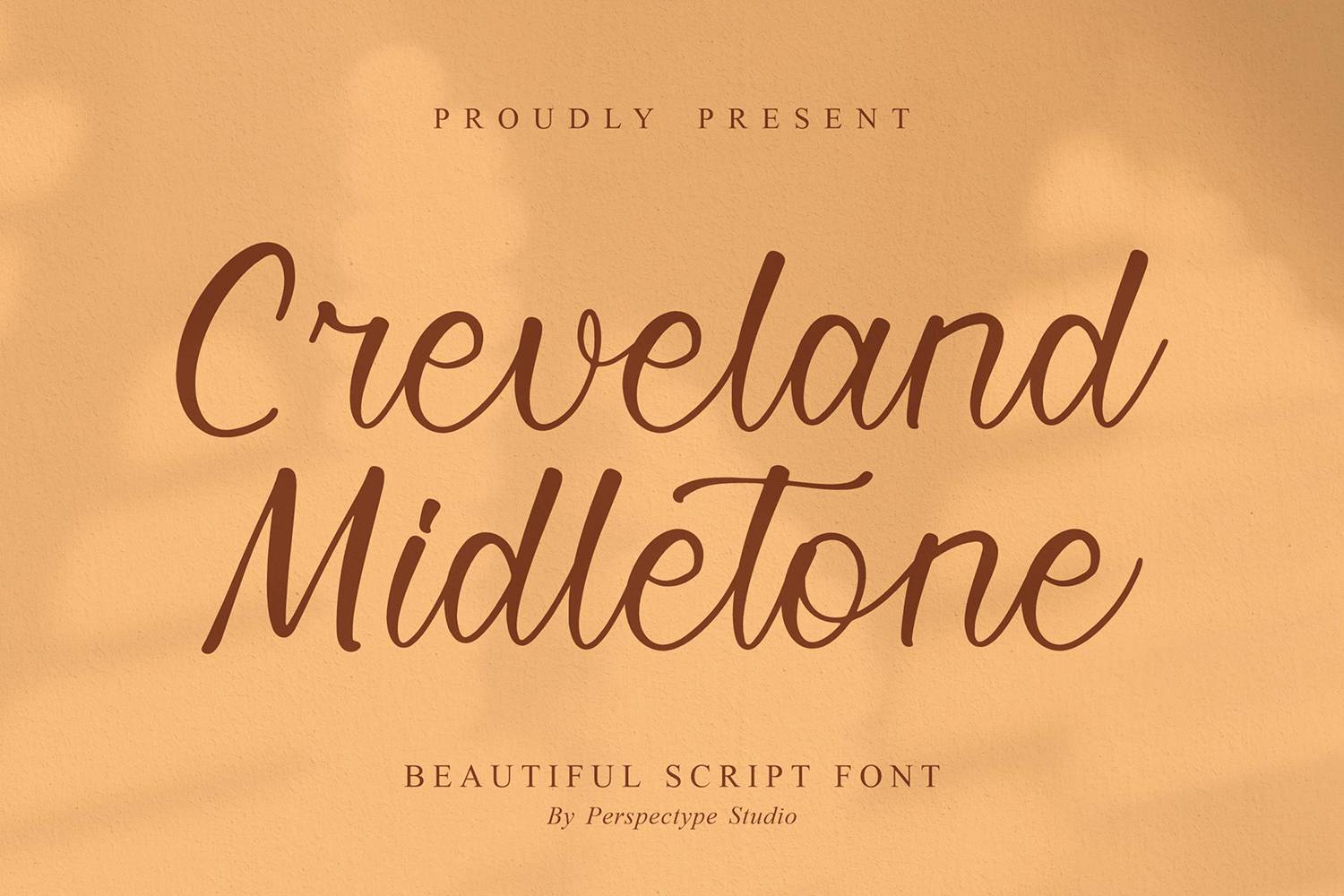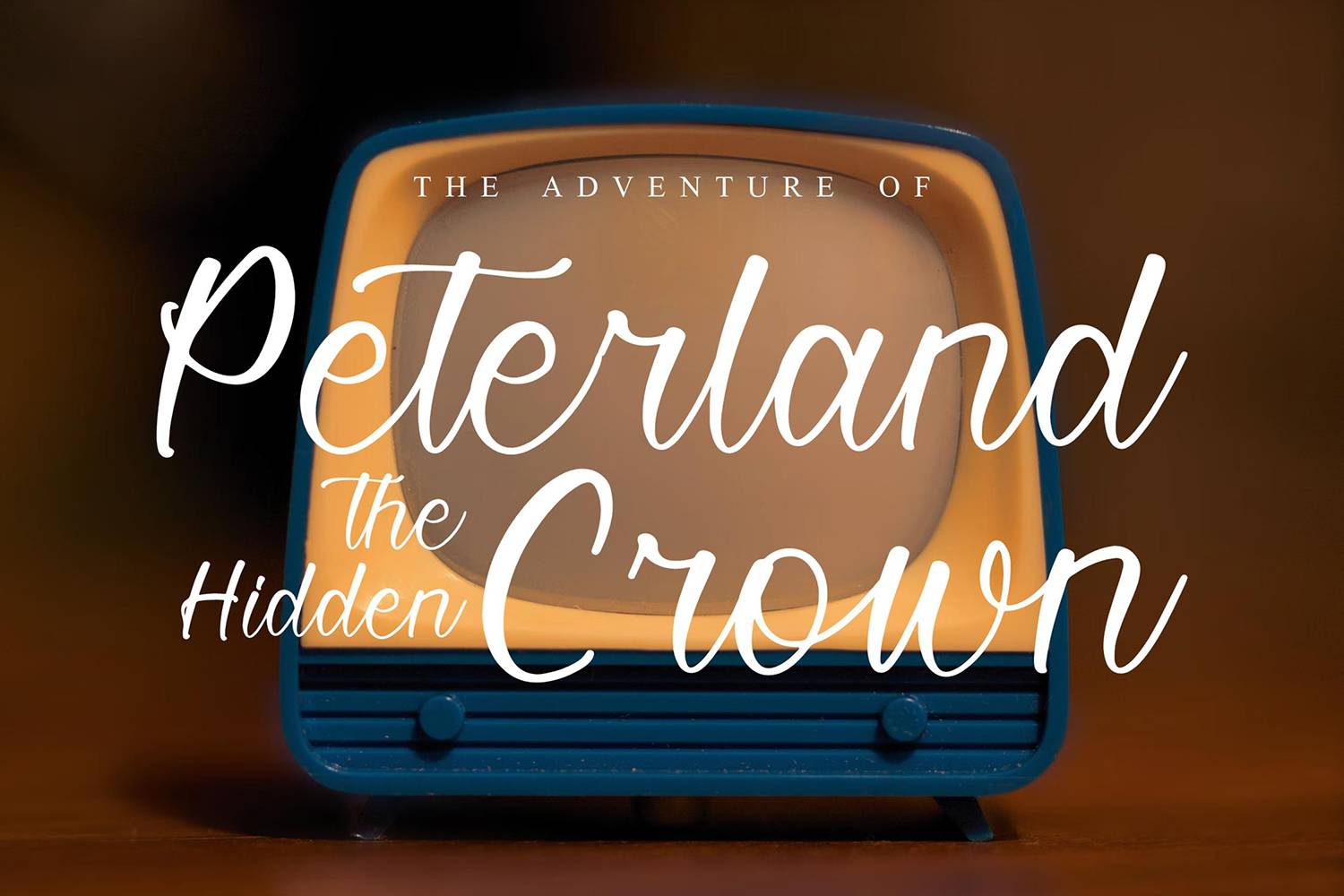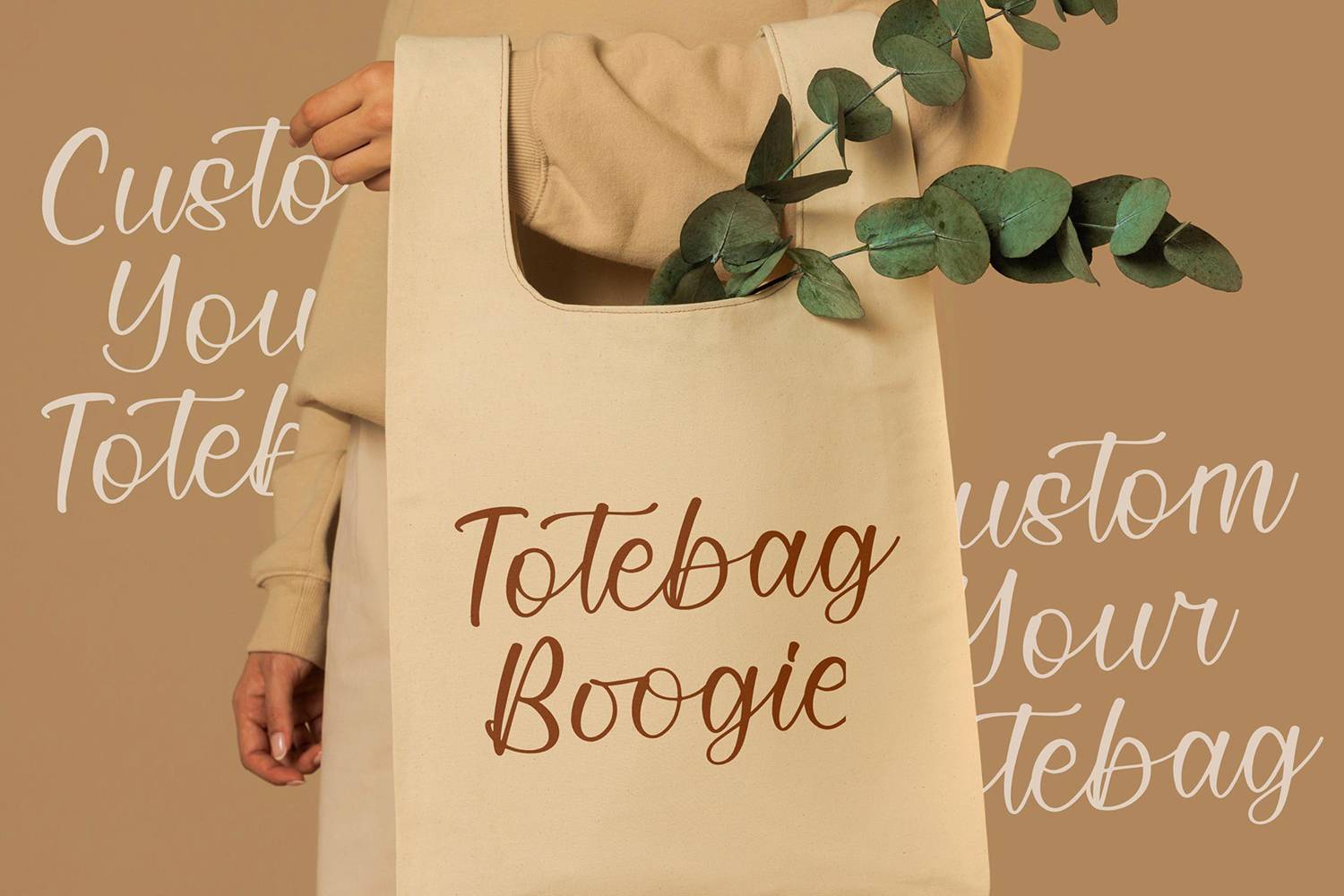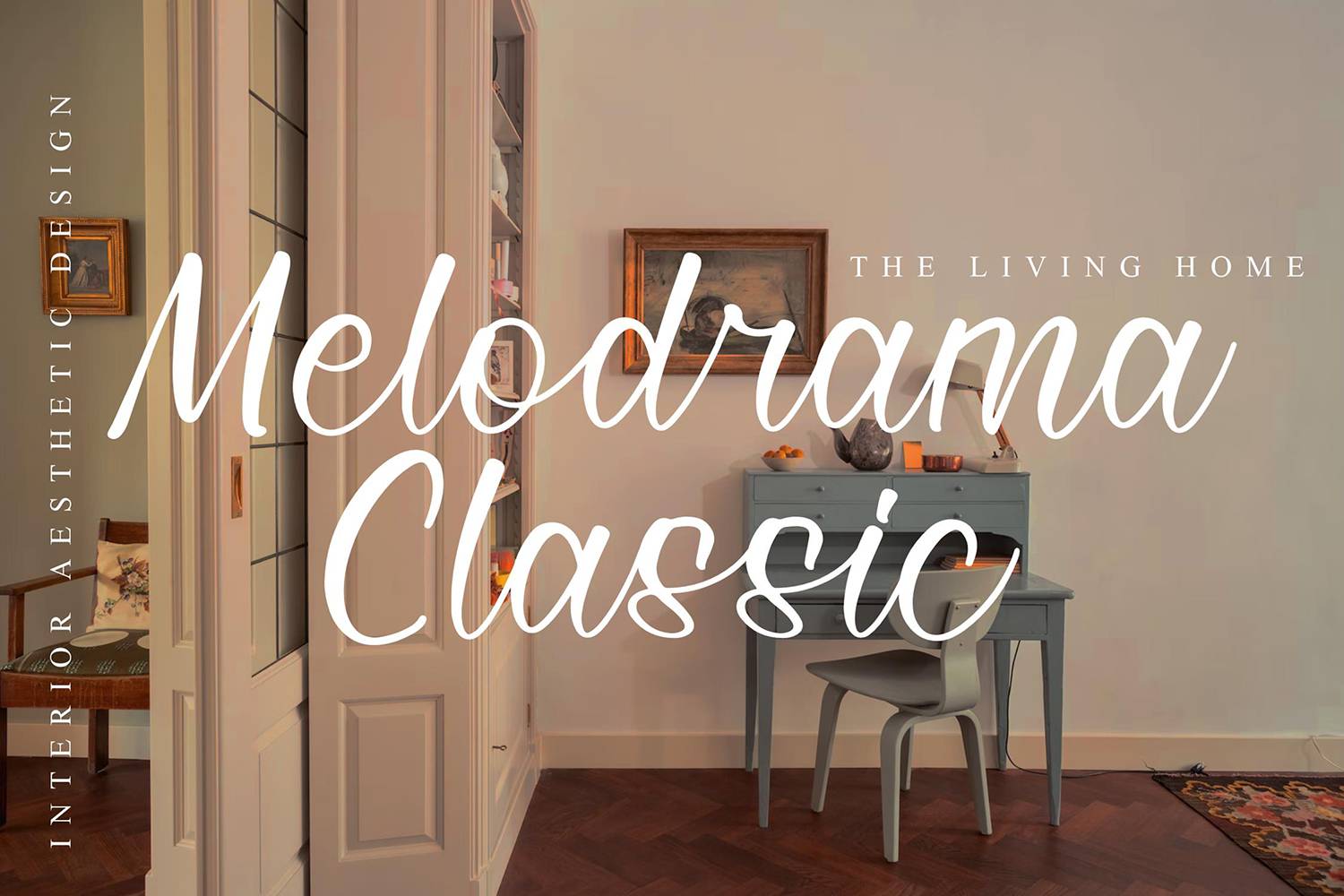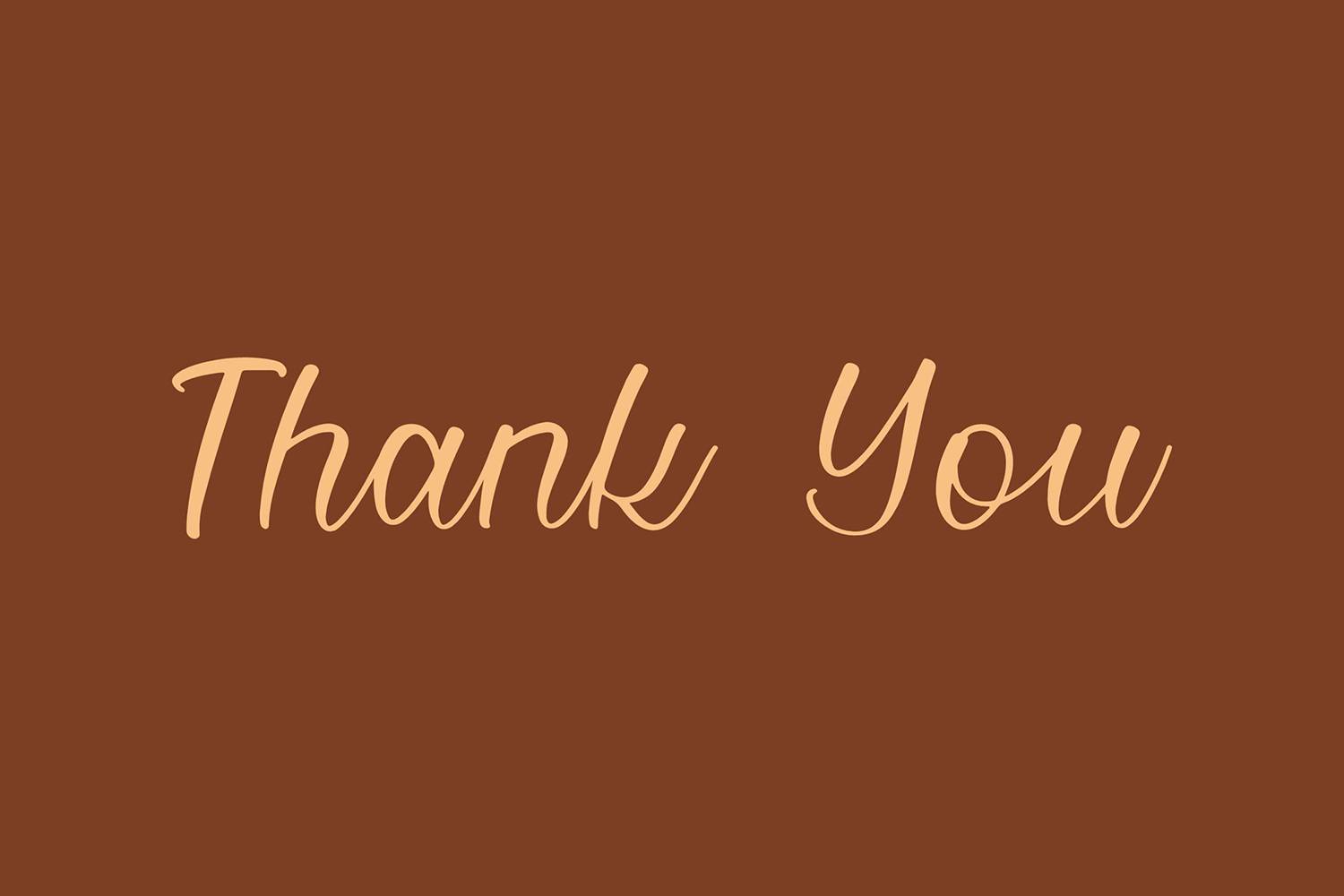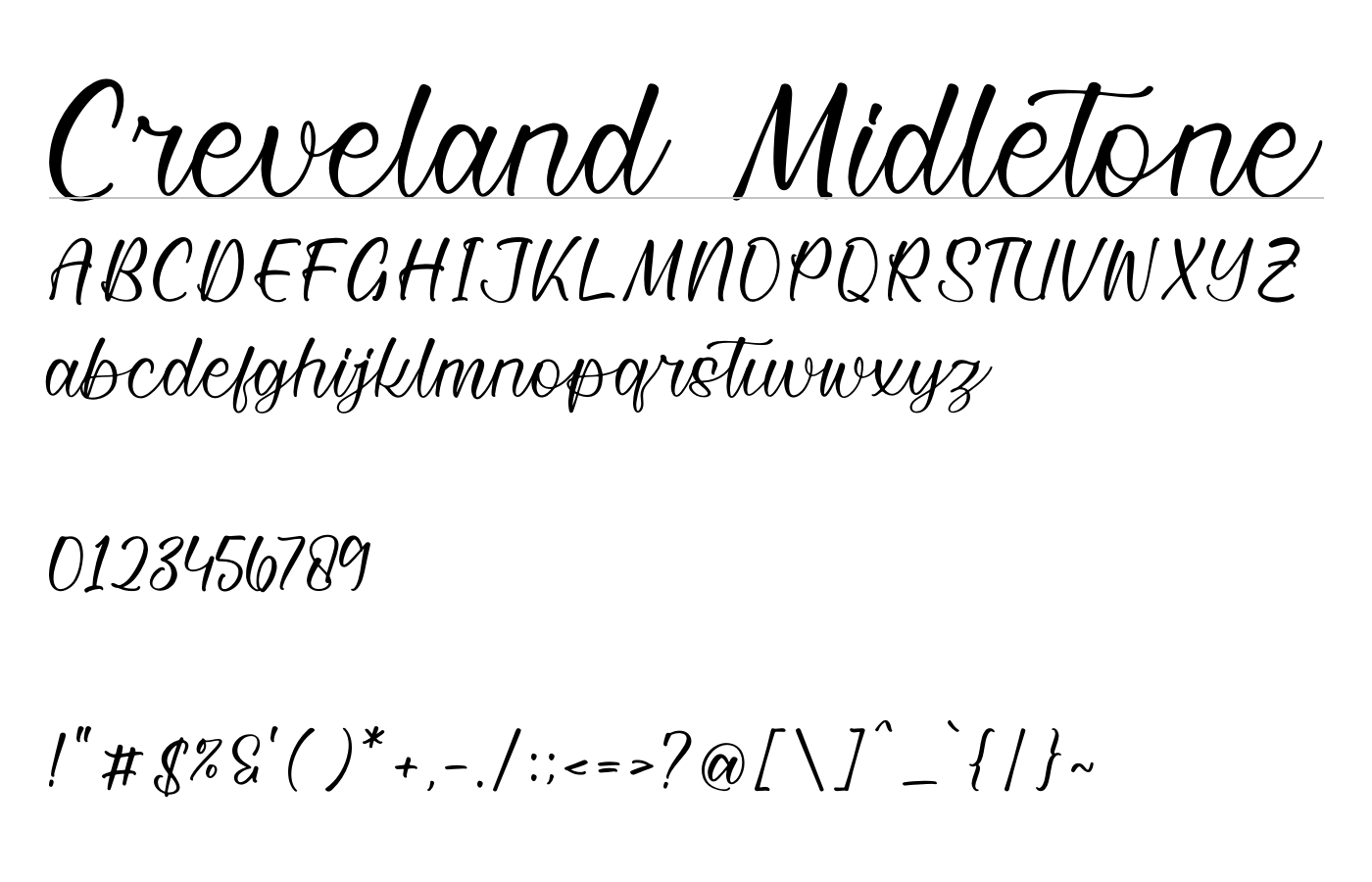
Creveland Midletone is a graceful, handwritten script font with a light and airy feel, featuring smooth, flowing strokes and elegant letterforms that mimic natural penmanship. Its slender, slightly slanted characters convey a warm, personal touch, making it ideal for styling invitations, branding, and editorial projects where a sophisticated yet approachable look is desired. This font works beautifully in designs that aim to communicate creativity, charm, and a friendly, handcrafted vibe.
Creveland Midletone Font
About Creveland Midletone Font